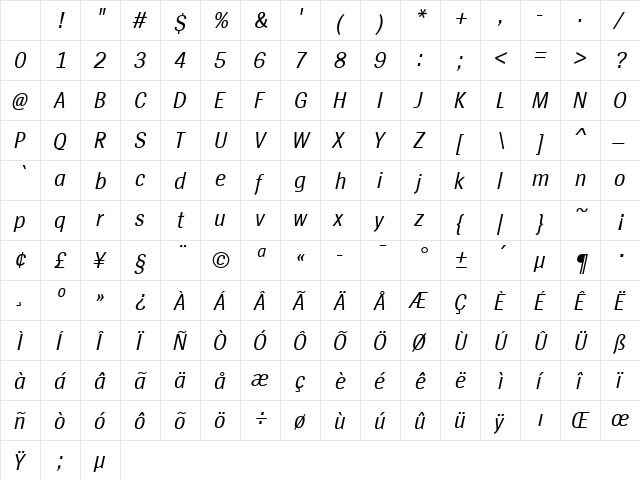
Complete SpiegelCd Italic glyph index. Displaying only characters natively supported by SpiegelCd Italic font.
SpiegelCd is a composed and adaptable typeface that performs quietly and consistently across a wide range of design contexts. The slanted form adds forward momentum and visual energy.
Pro Tip: Use SpiegelCd for emphasis, pull quotes, and subheadings where its slanted energy can add rhythm to the layout.